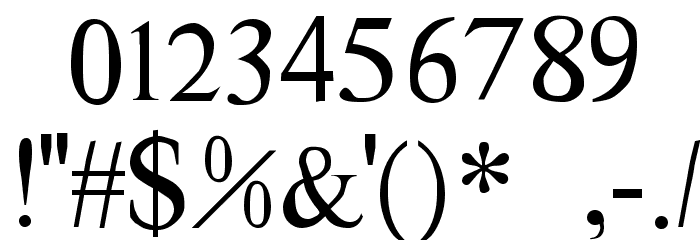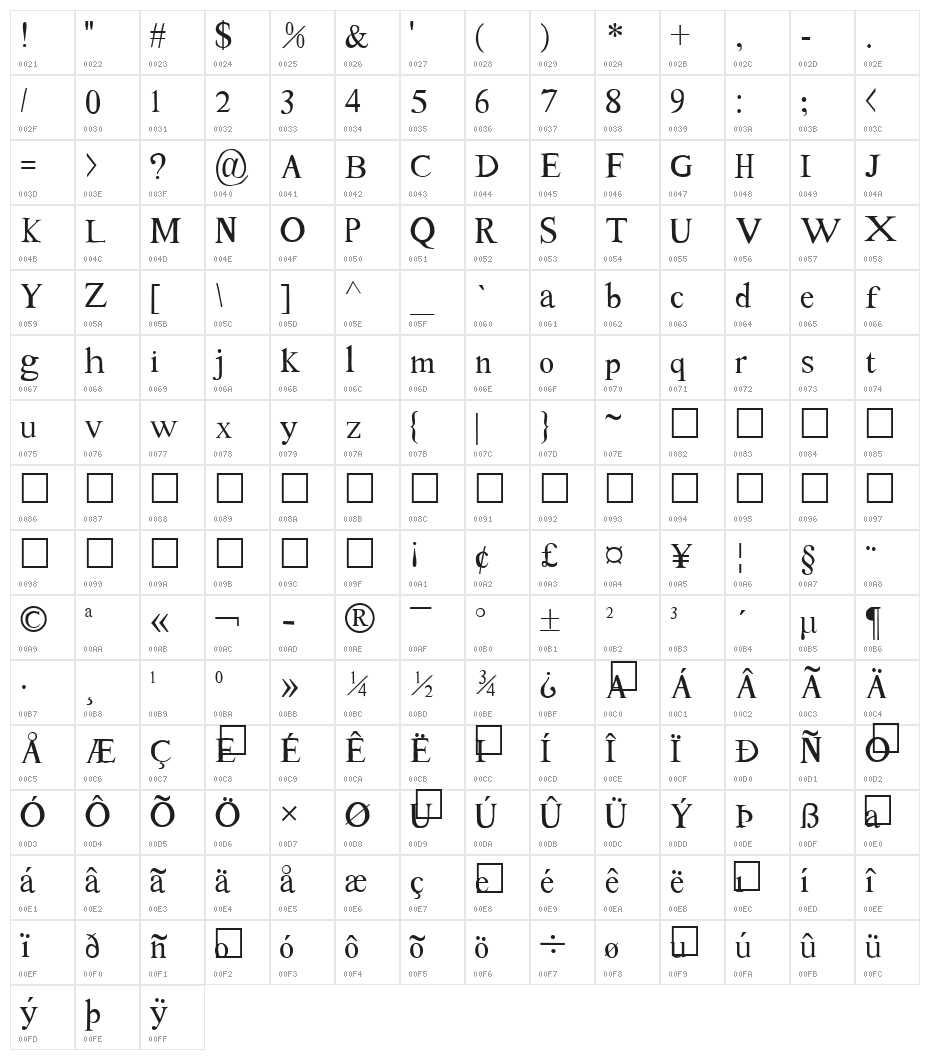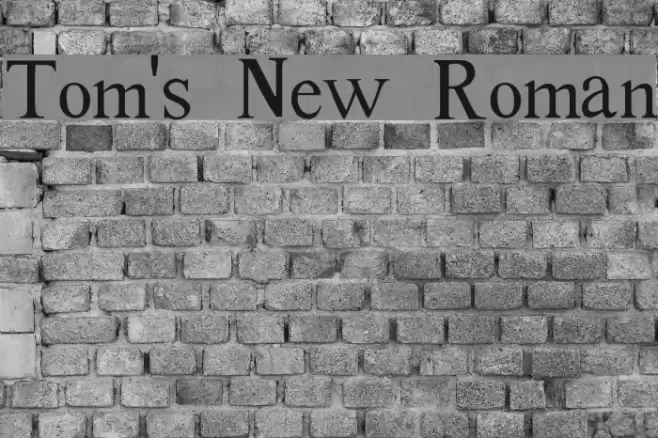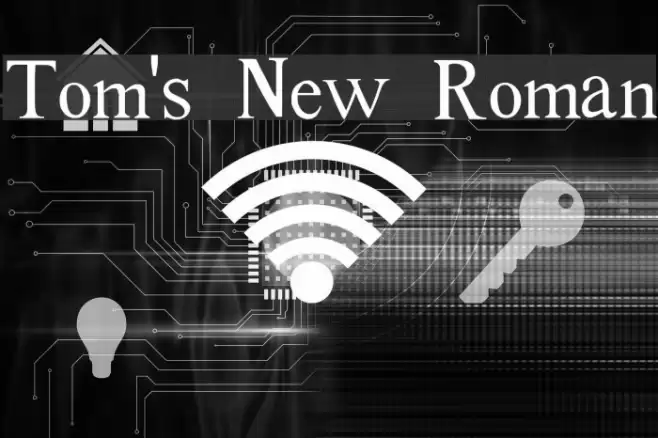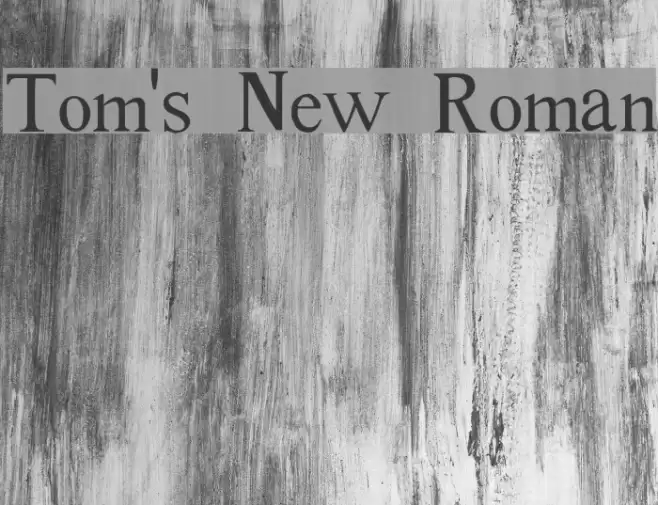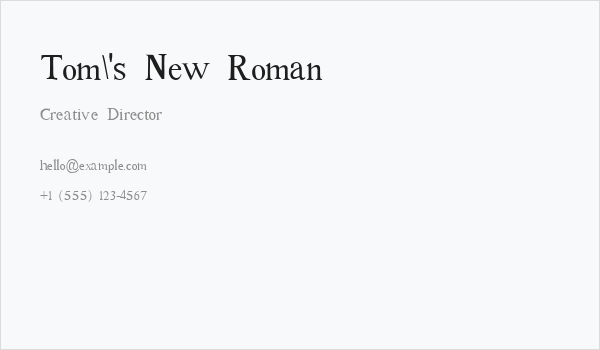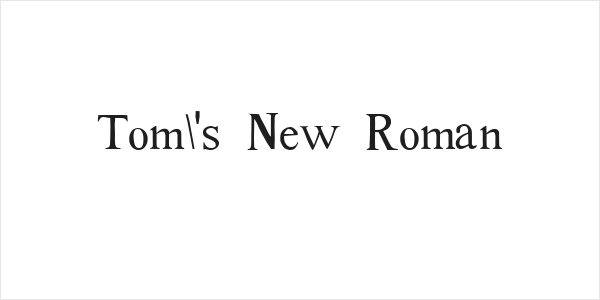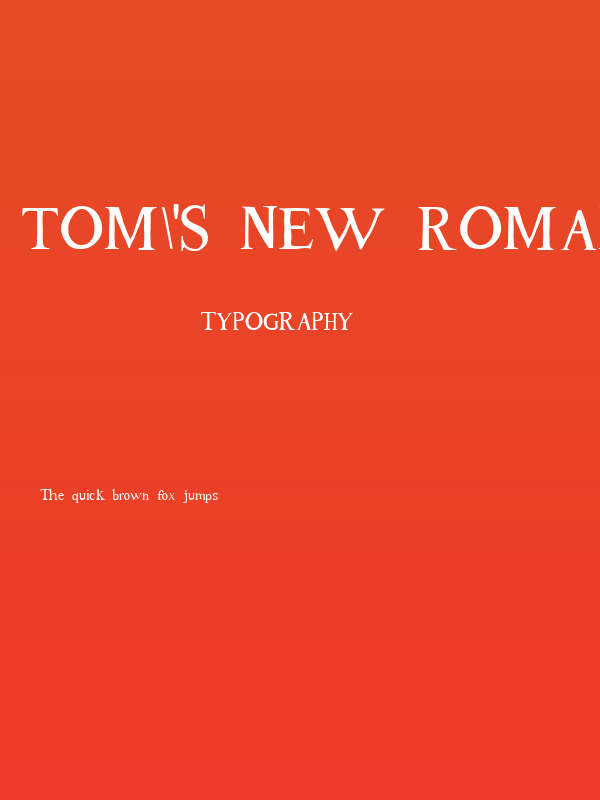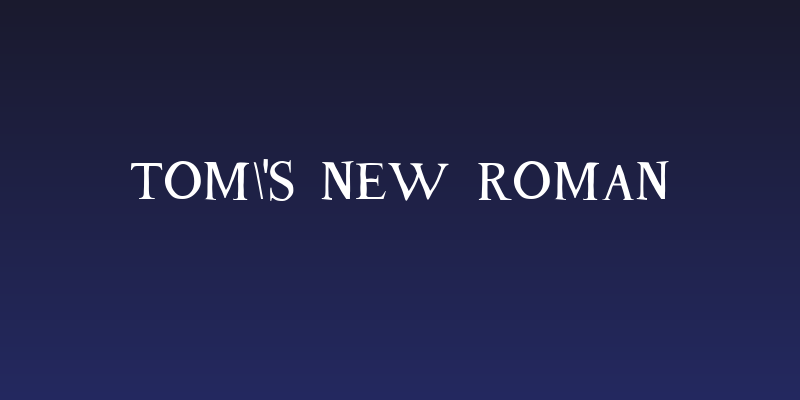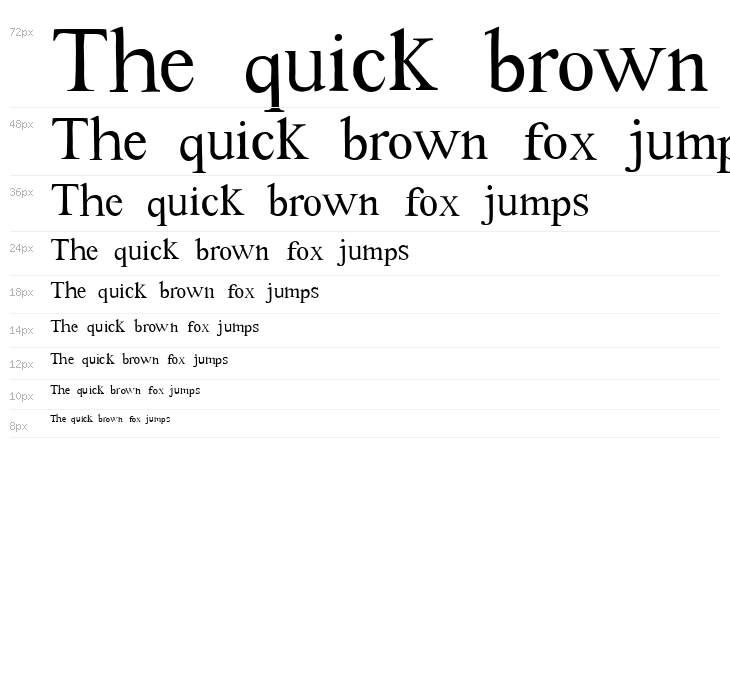
Tom's New Roman Font
Tom's New Roman Description
This font exudes a classic and timeless elegance, characterized by its serif style and traditional letterforms. The uppercase letters are bold and commanding, while the lowercase letters maintain a refined and balanced appearance. The numerals are clear and distinct, ensuring readability. Special characters are designed with the same attention to detail, making them suitable for a variety of uses. The overall design is sophisticated, with a moderate contrast in stroke thickness that enhances its legibility and aesthetic appeal.
| Proposed Projects | Ideal for editorial design, book covers, formal invitations, and branding projects that require a touch of sophistication. |